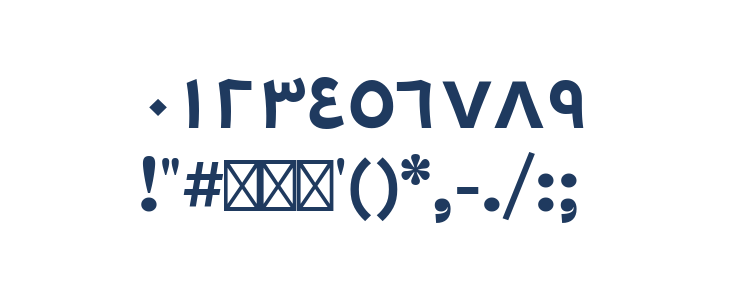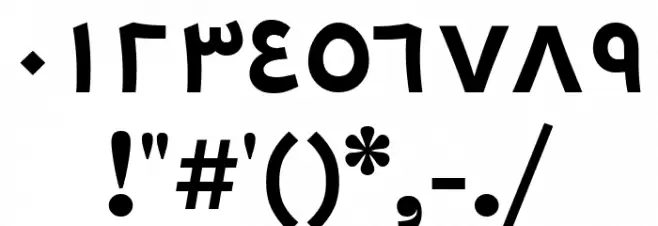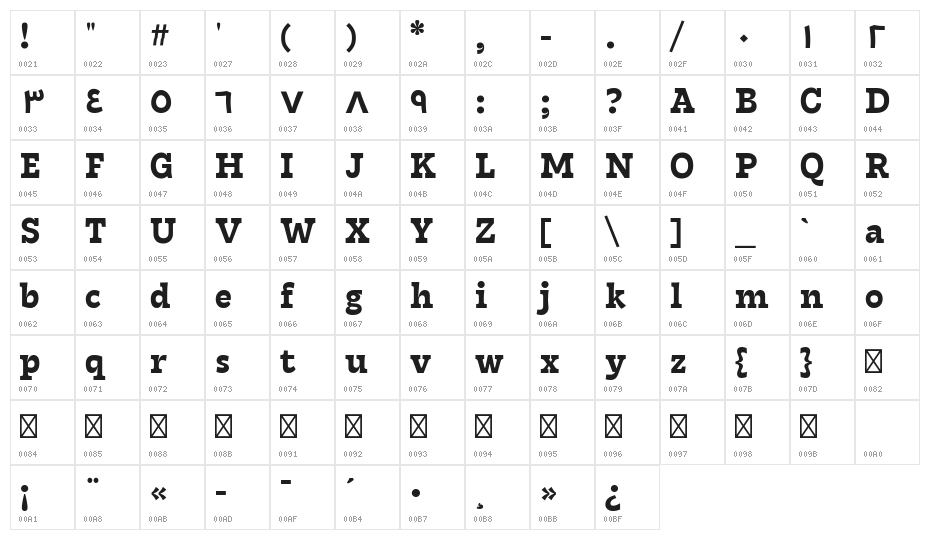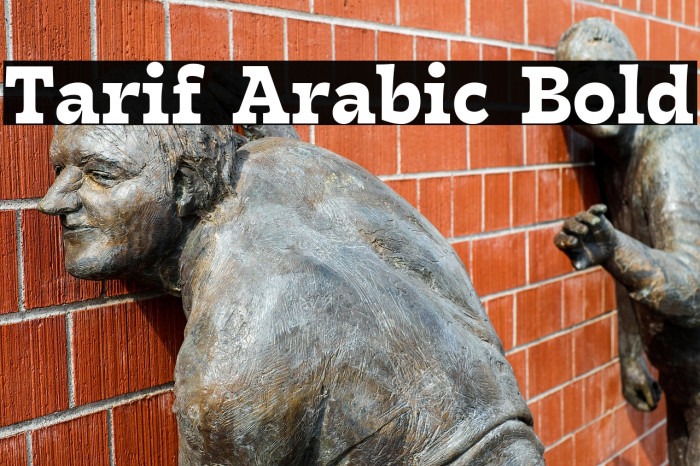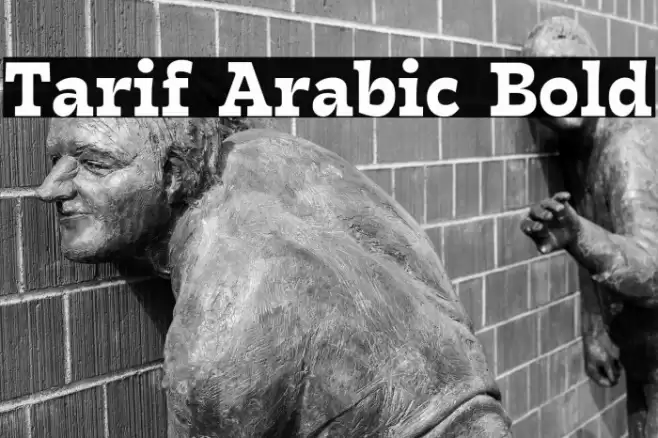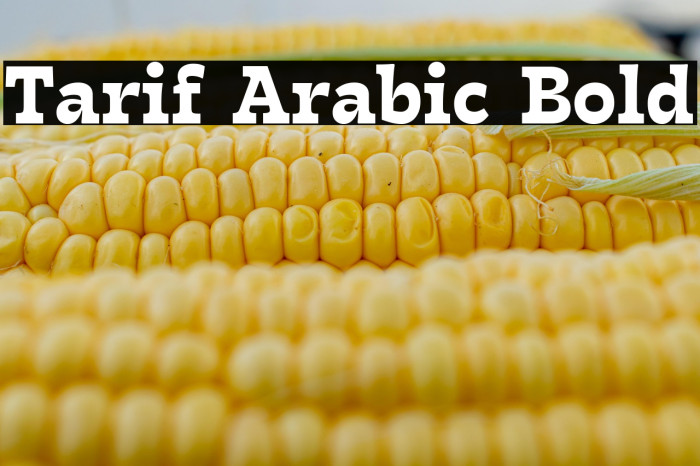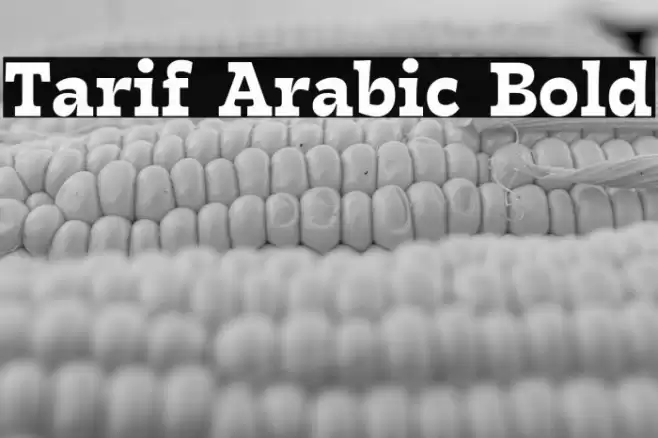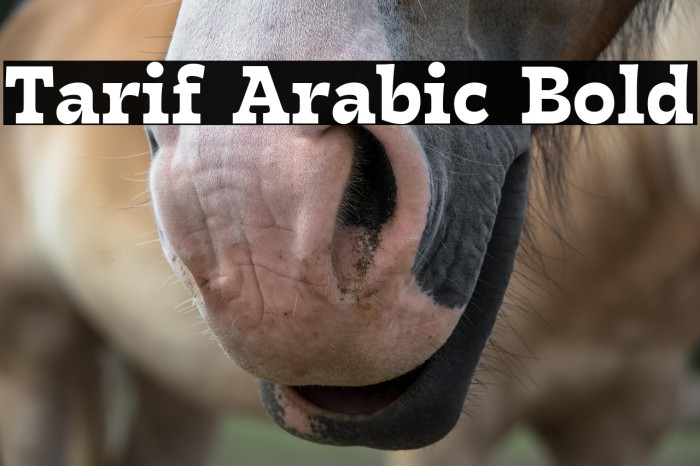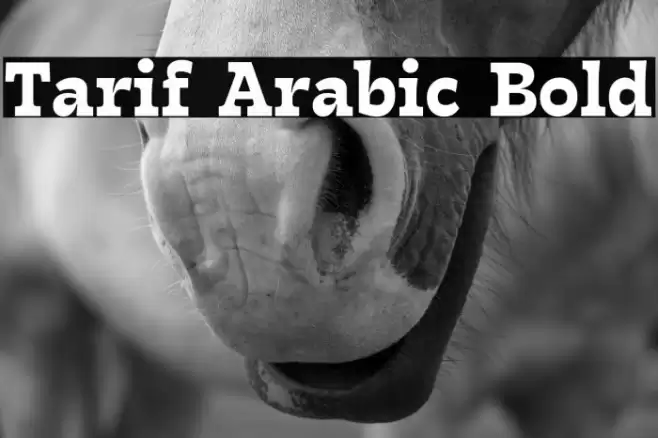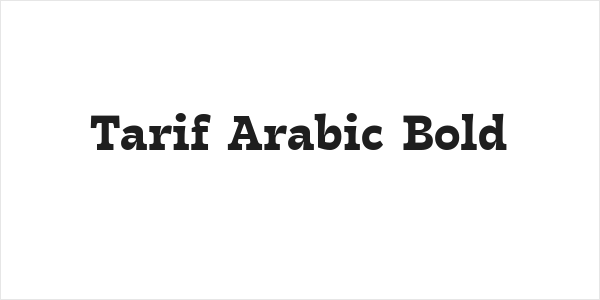
Tarif Arabic Bold Font
Tarif Arabic Bold Description
This font features a bold and striking design, characterized by thick, consistent strokes that convey a sense of strength and stability. The uppercase letters are robust and commanding, while the lowercase letters maintain a harmonious balance with slightly rounded edges that soften the overall appearance. The numerals are distinct and easy to read, complementing the alphabet with their bold presence. Special characters are crafted with the same attention to detail, ensuring uniformity across the entire character set. This font's boldness makes it ideal for creating impactful headlines and logos, where clarity and emphasis are paramount.